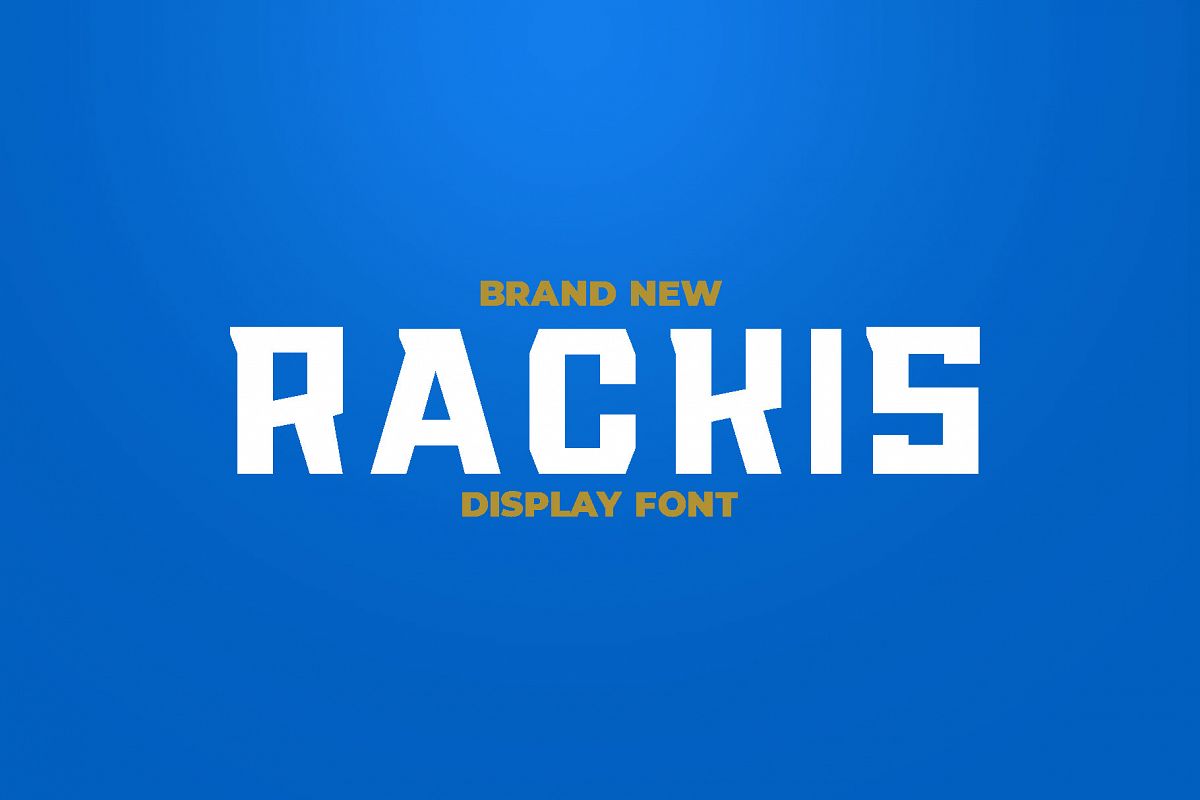
RACKIS Display Font
Warrock Exclusive Display font, is our new item that suitable for your team logo, or community logo.
Great for Logo, Sticker, Jersey, Invitation Card, Brochure, etc.